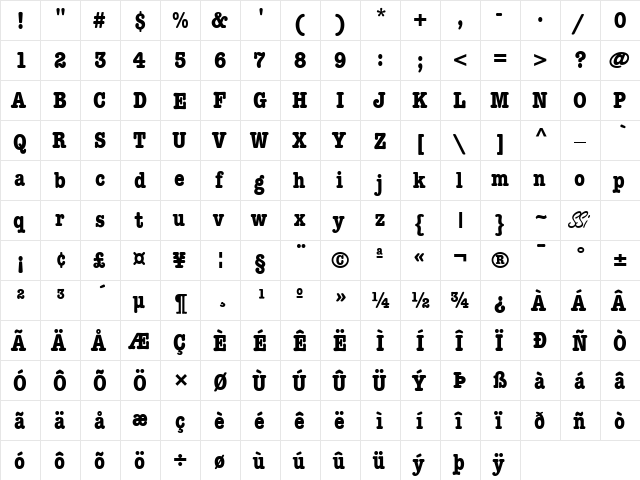
Keyboard Condensed SSi Bold Condensed
Design Context for Keyboard Condensed SSi Typeface
Keyboard Condensed SSi is a composed and adaptable typeface that performs quietly and consistently across a wide range of design contexts. The heavy weight commands attention and anchors typographic hierarchies. Its narrow stance lets it pack a punch even in space-constrained designs.